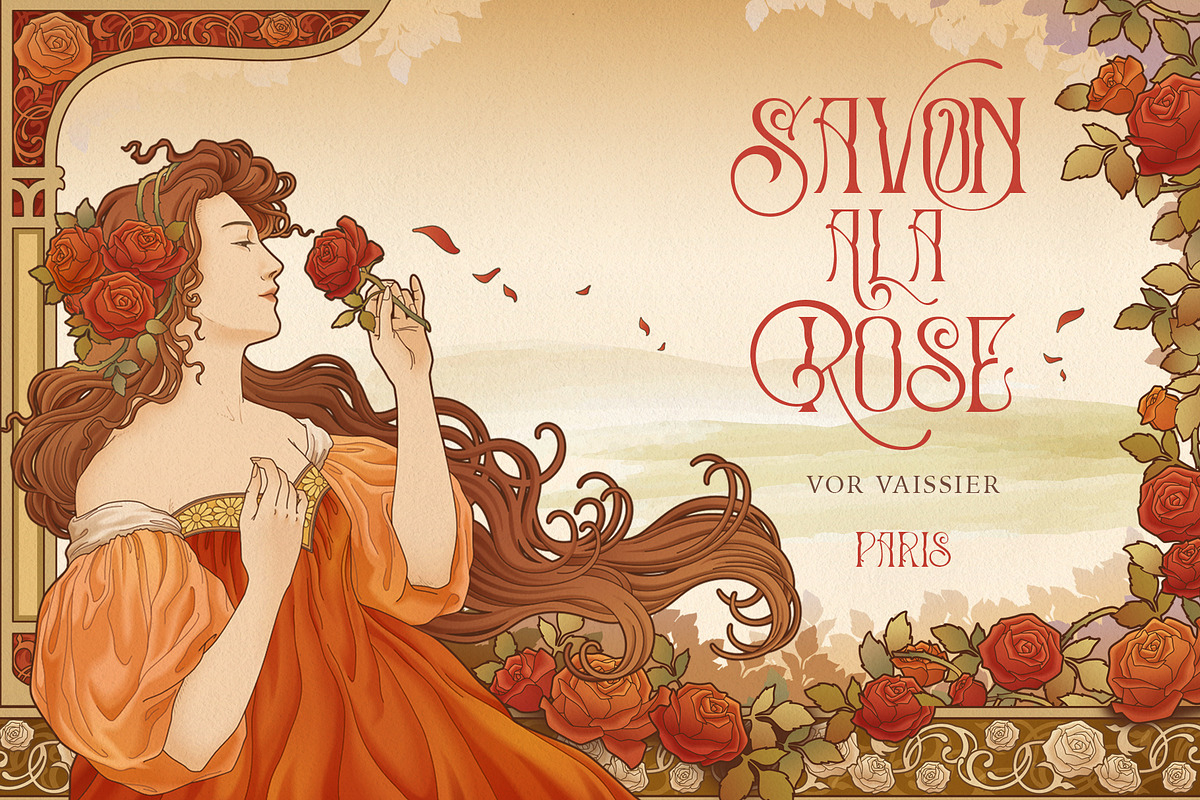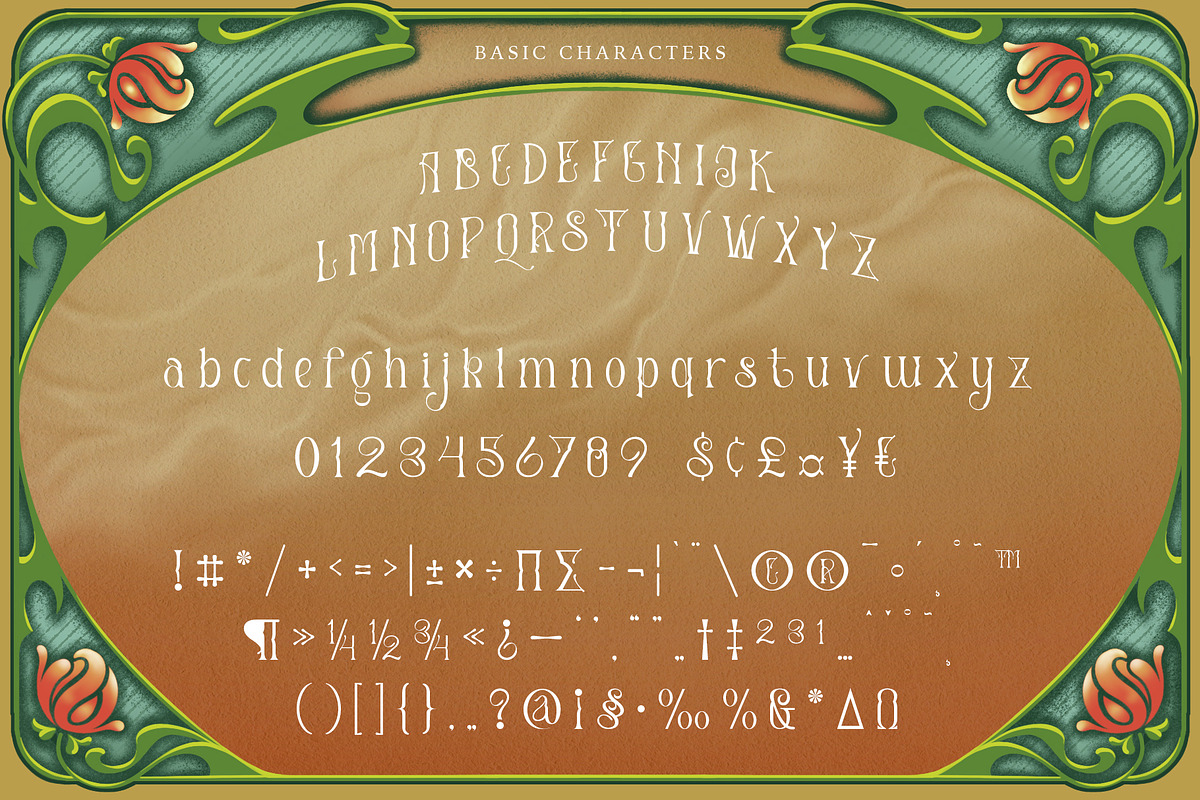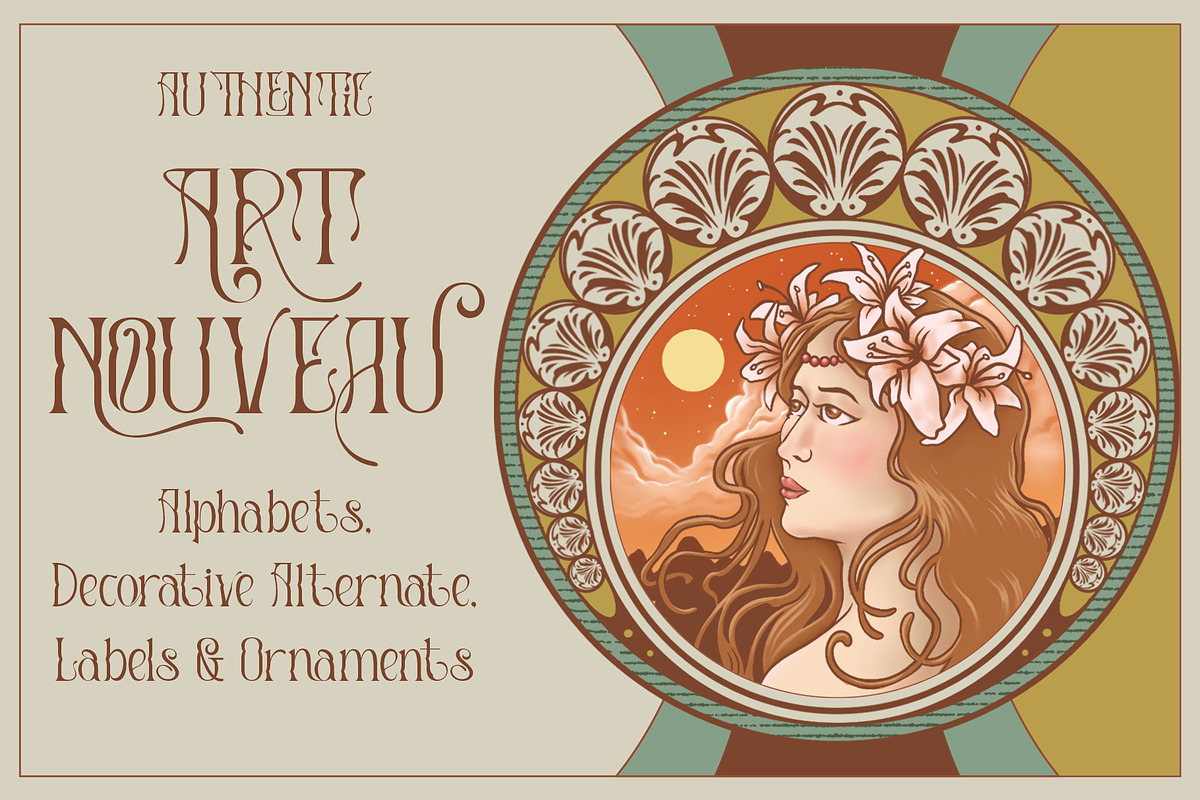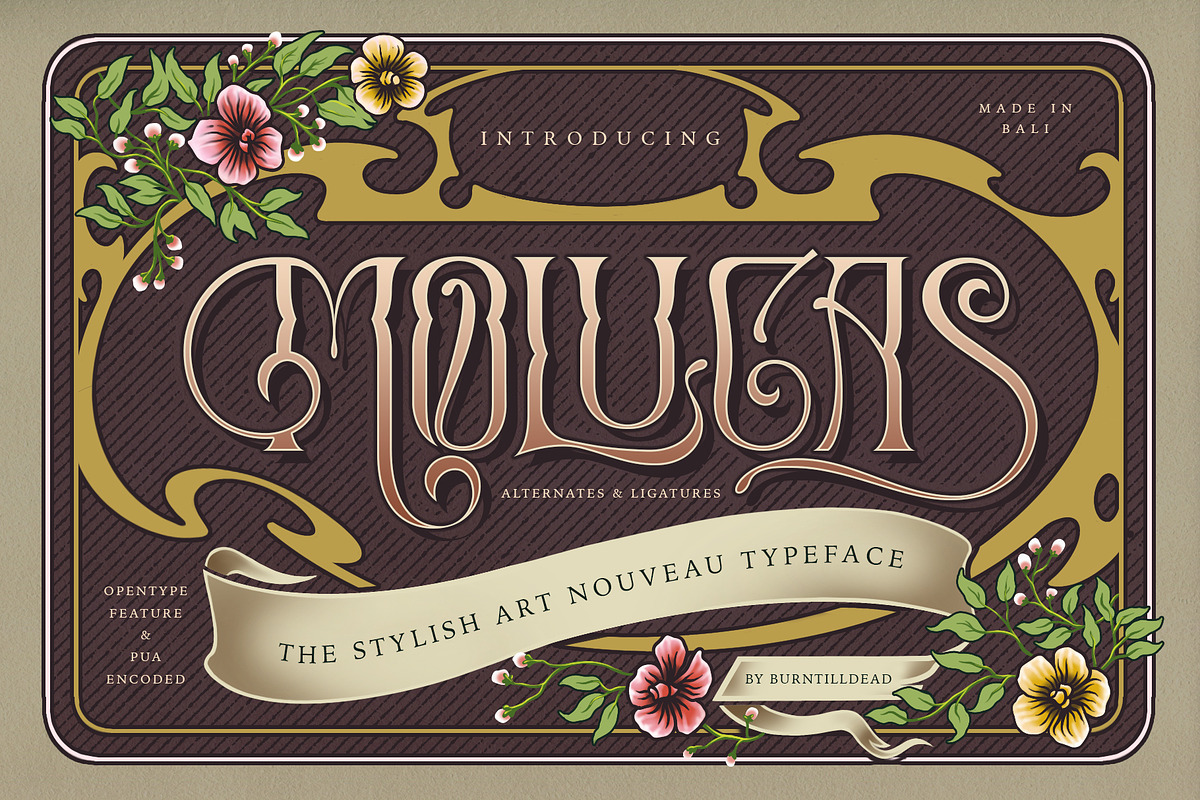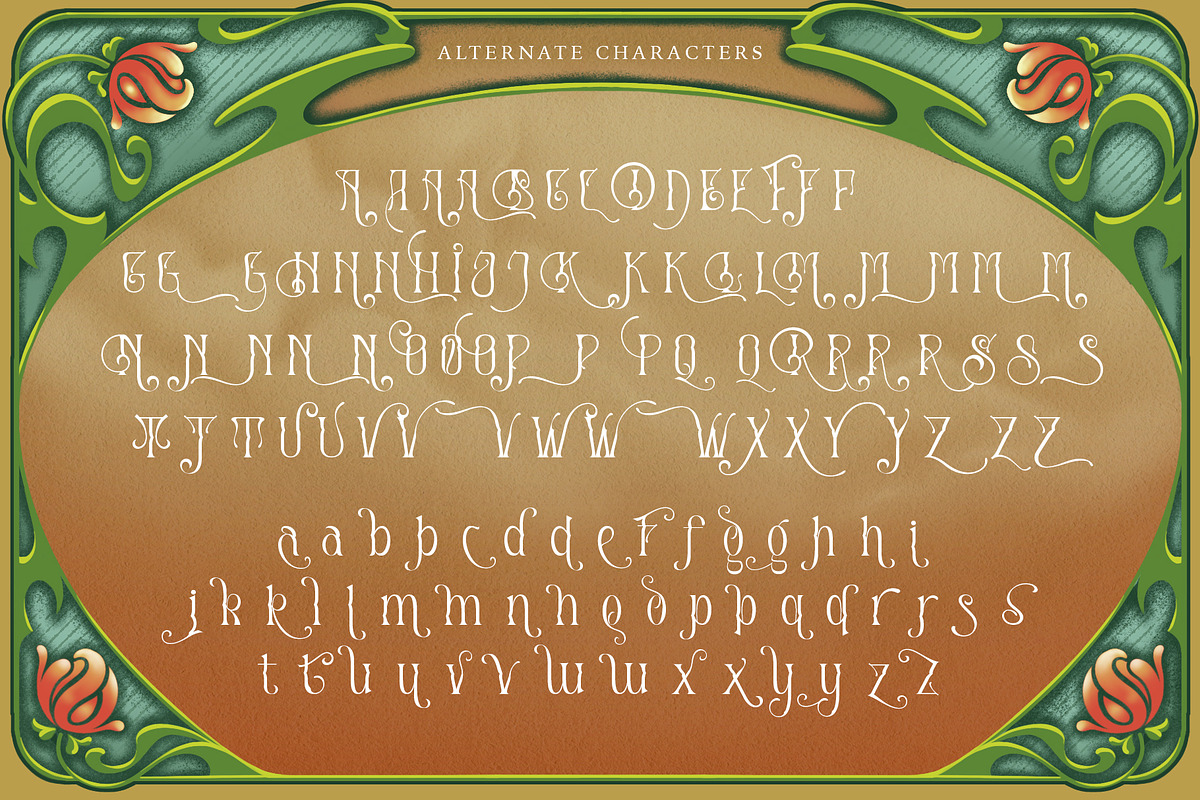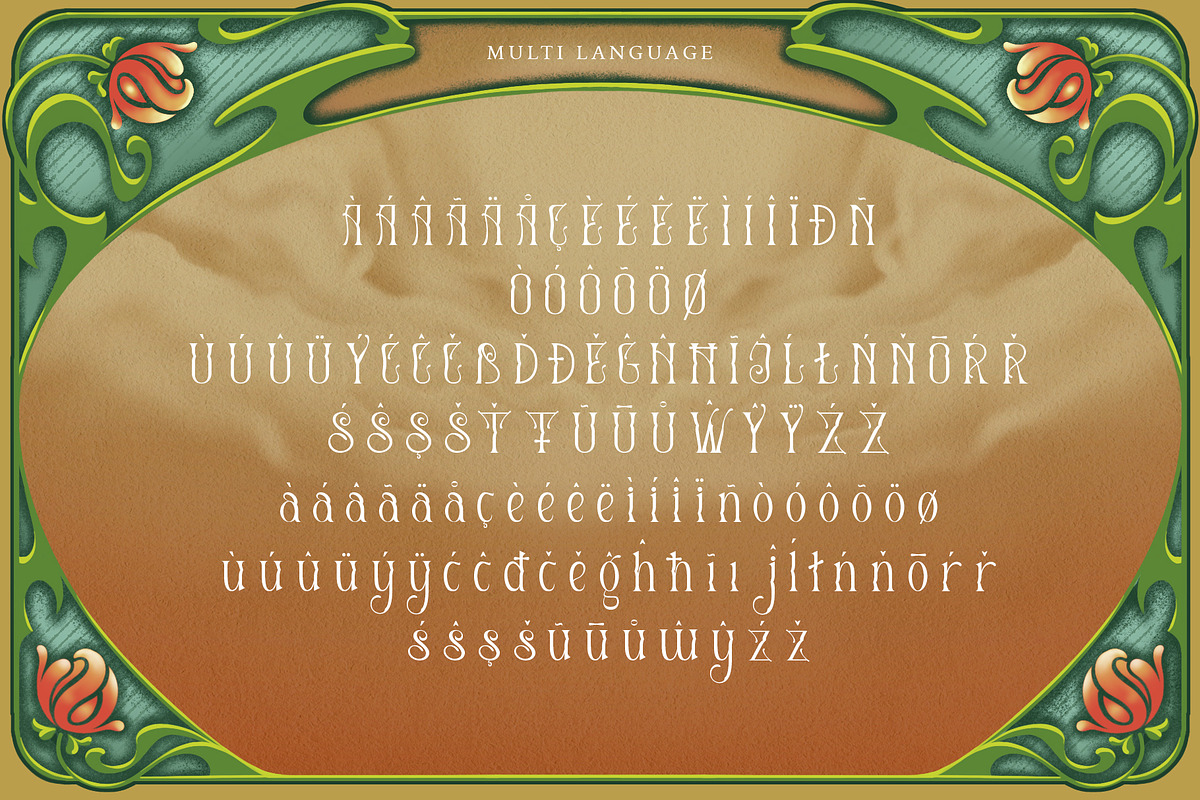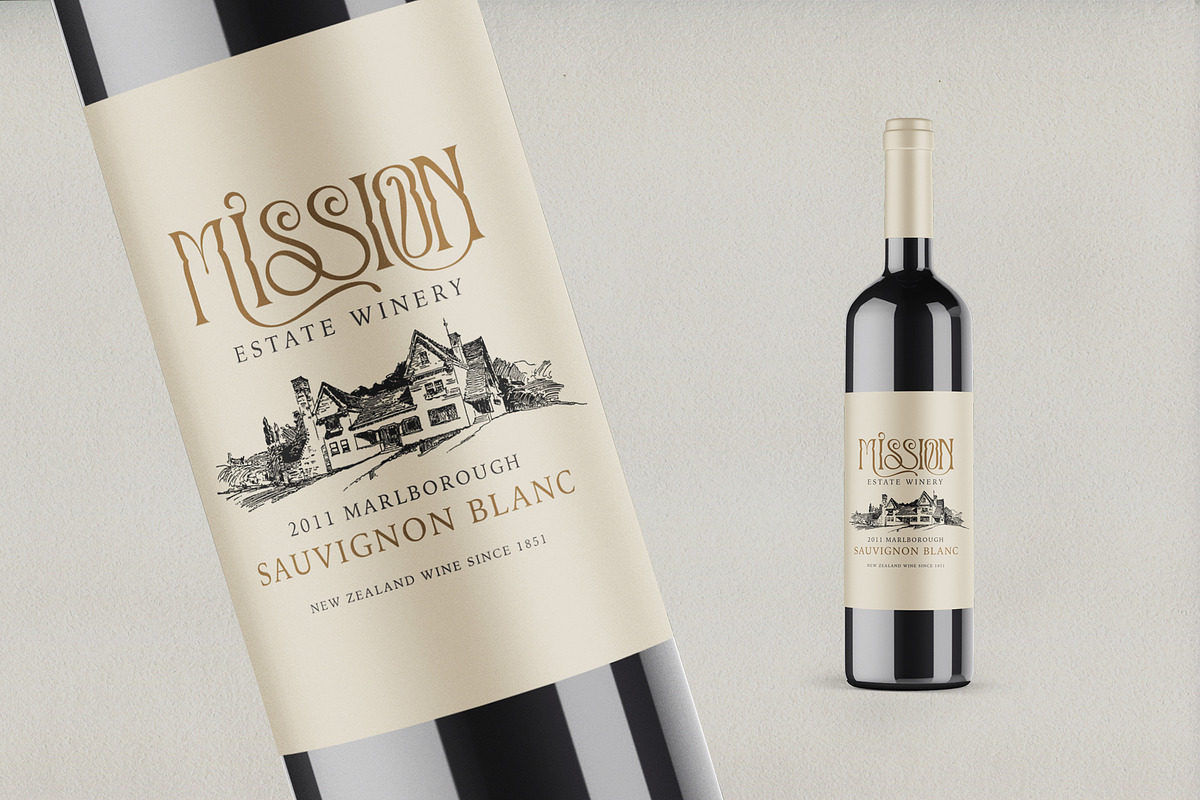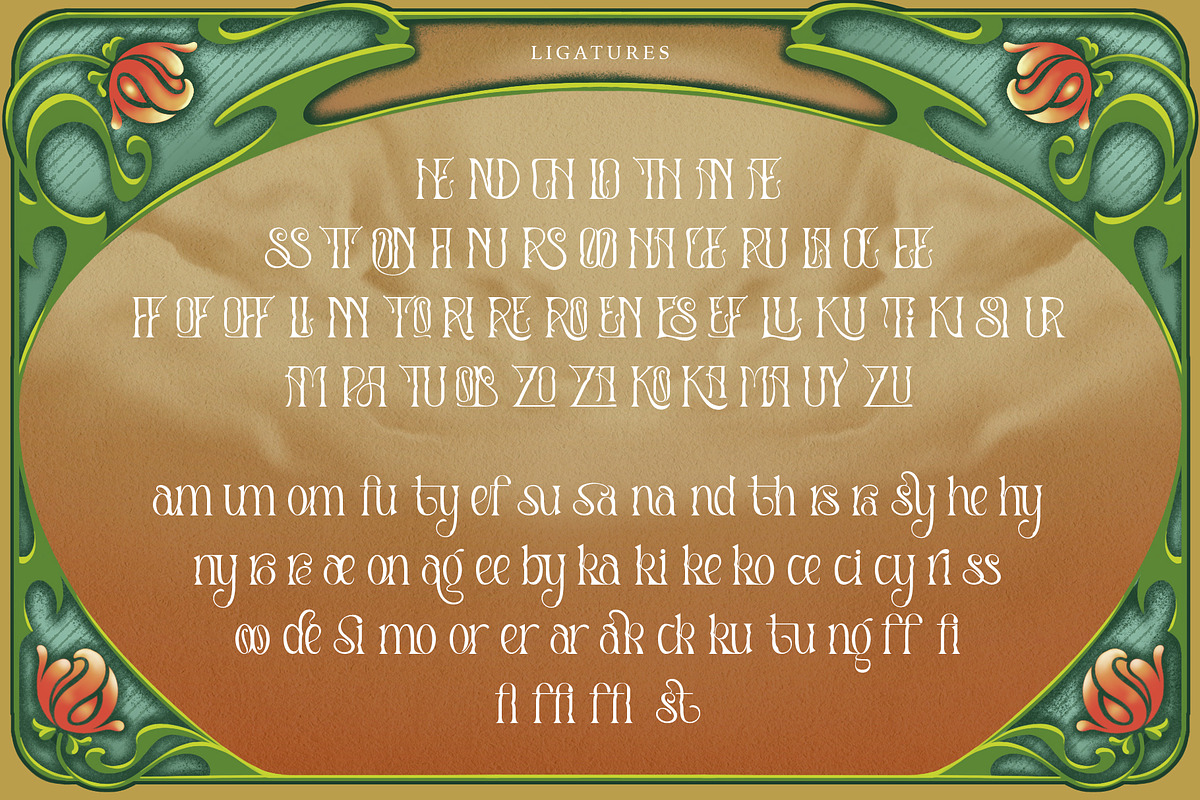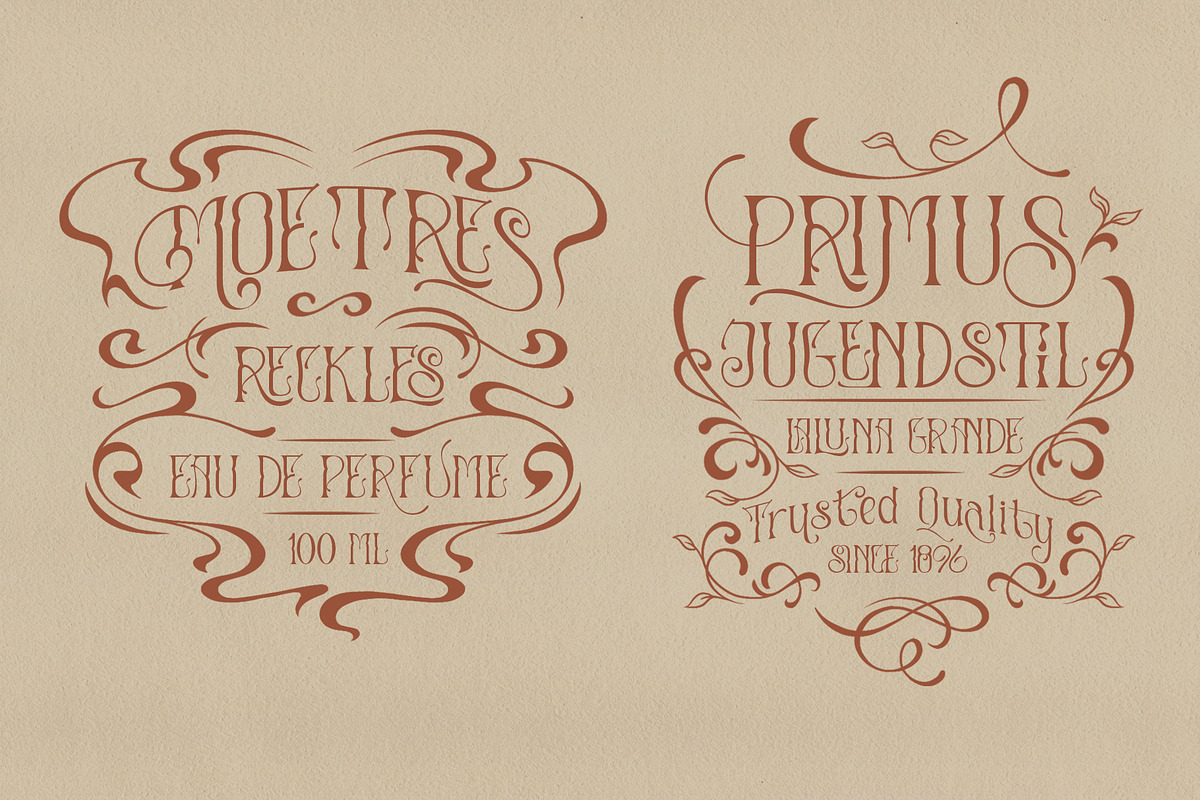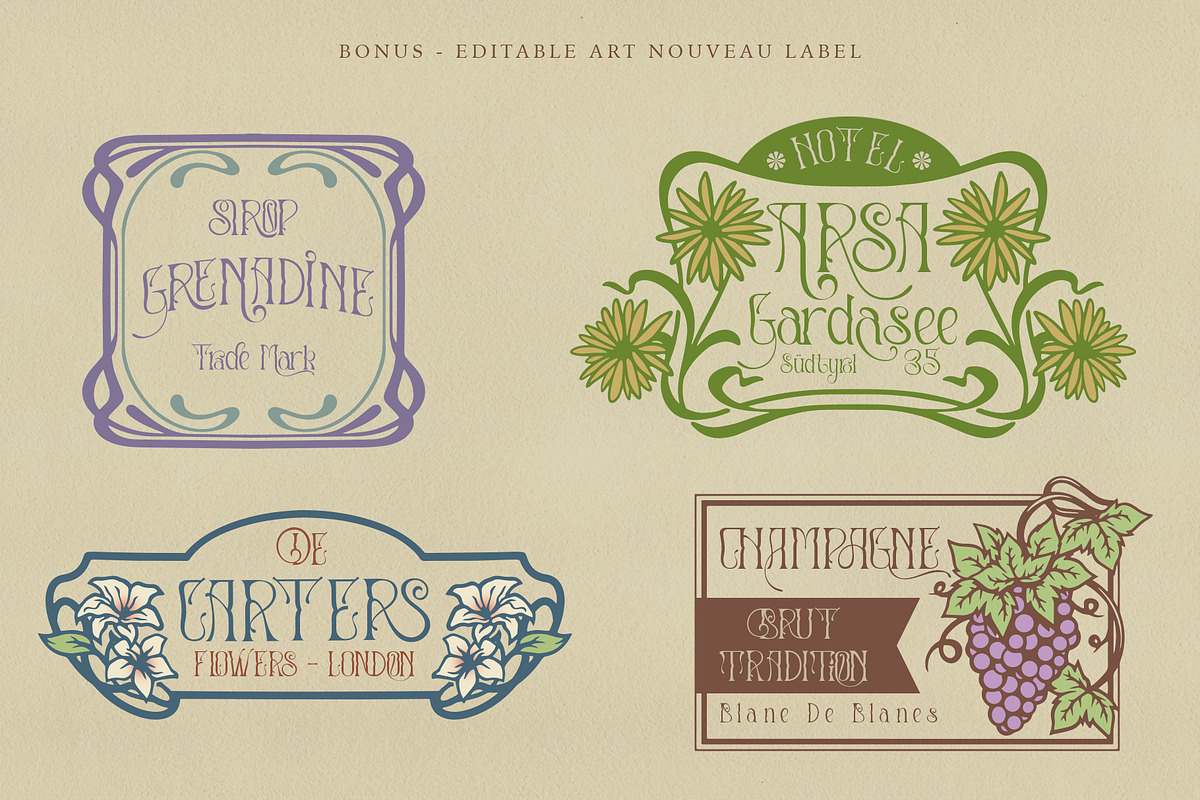
Molucas
Who doesn't love with ornamental style flourish. Molucas typeface inspired by the classic sign between about 1890 and 1910.
Molucas typeface will be very suitable for making logo, label designs, poster, packaging designs, etc. Supported by opentype feature (01 - 07 Alternates, ligature & fraction).
Multi language ready!
A-Z Character Set
a-z Character set
Numerals & Punctuations (OpenType Standard)
ligatures